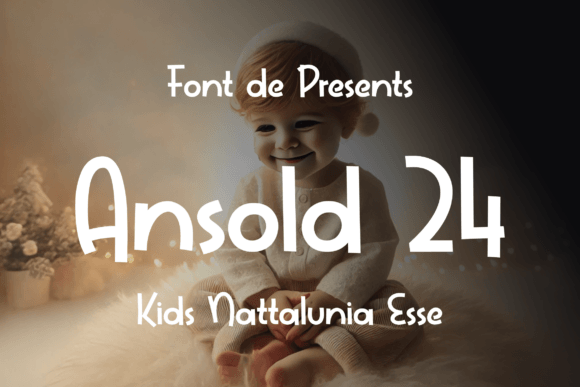
Deck the Halls with Design: Introducing Ansold 24 Font
As the holiday season approaches, designers everywhere are scrambling to create the perfect festive designs. For many, it’s a moment of pure joy – the chance to tap into the magic of Christmas and spread cheer to those around them. But what happens when you want to take your designs to the next level, infusing them with a sense of warmth and whimsy that truly captures the essence of the season?
That’s where the Ansold 24 Font comes in – a delightful, handcrafted font designed specifically to resonate with the gentle spirit of Christmas. With its friendly curves and charming aesthetic, this font is the perfect canvas for designs that celebrate family, children, and the sentiments synonymous with the holiday season. Whether you’re creating holiday cards, family event posters, or festive invites, the Ansold 24 Font is sure to add a touch of warmth and personality to your designs.
Key Features of Ansold 24 Font
- Unique Characteristics: The font features a unique blend of modern and vintage elements, with clean lines, rounded edges, and a subtle distressed effect that adds a touch of elegance and sophistication.
- Font Style: Ansold 24 Font comes in a single style, but it is highly versatile and can be used for a variety of applications, including headings, titles, and body text.
- Character Count: The font contains a large character set, including uppercase and lowercase letters, numbers, punctuation, and special characters, making it suitable for a wide range of languages and applications.
Ansold 24 Font Review
Overall, I think the Ansold 24 Font has its moments, but it’s not without its flaws. Let’s start with the good stuff ✨
- Clean and minimalist aesthetic – Ansold 24 Font’s simplicity is both refreshing and versatile. It’s a great choice for projects where you need a clean, modern look.
- High legibility – The font is well-designed for digital use, making it a great choice for web projects or mobile apps.
- Wide range of languages supported – Ansold 24 Font supports a wide range of languages, making it a great choice for international projects.
However, there are some limitations ⚠️
- Lack of personality – Ansold 24 Font feels a bit generic, lacking the personality and character that some other fonts bring to the table.
- Not ideal for creative or artistic projects – While Ansold 24 Font is great for clean, modern designs, it’s not the best choice for creative or artistic projects that require a bit more flair.
- Not as customizable as some other fonts – Ansold 24 Font has limited customization options, which can make it a bit restrictive for designers who like to get creative.
Overall, I think the Ansold 24 Font is a solid choice for designers who need a clean, modern font for digital projects. However, it’s not the most exciting choice, and it may not be the best fit for every project.
Tips for Getting the Most Out of Ansold 24 Font
Use Ansold 24 Font for:
- Body text in modern and minimalist designs
- Creating a cohesive brand identity
Remember to use Ansold 24 Font consistently throughout your design to maintain a professional and polished look.
Alternatives to Ansold 24 Font for Designers
The Ansold 24 Font is a sans-serif font known for its clean and modern design. However, designers may be looking for alternatives that offer similar or distinct characteristics. Here are a few options to consider:
Open Sans is a highly legible sans-serif font that is ideal for digital design, such as websites and mobile applications. It features a clean and modern design, making it a great alternative to Ansold 24 Font. Open Sans is available in a wide range of weights and styles, making it highly versatile.